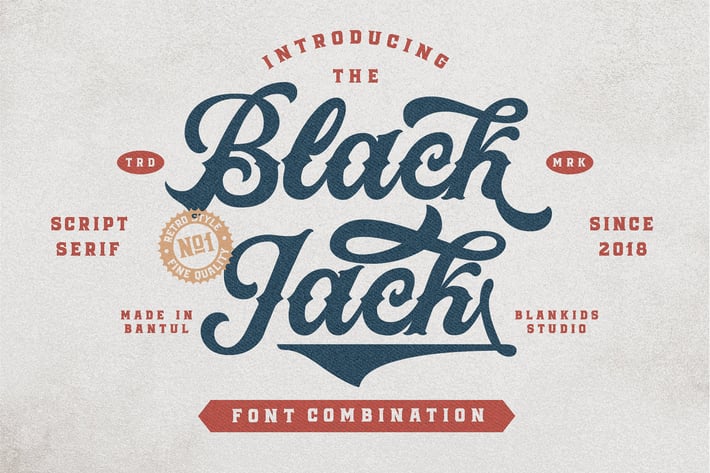
Black Jack - Vintage Font
Black Jack is combination 2 style Script and Serif font
Black jack with 2 style vintage script and bold serif so perfecly combination font, I made Black Jack inspired by the vintage style of letters on posters, bagde, packaging, labels from antiquity. Black jack have more than 400 glyph with many stylistic character, alternative character, swash, ligature and of course have multilingual support. I also added extra illustration and badge.